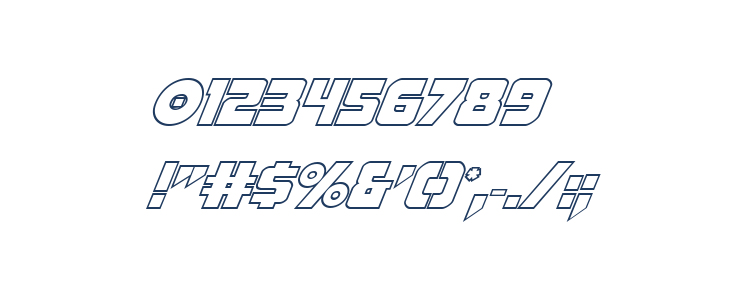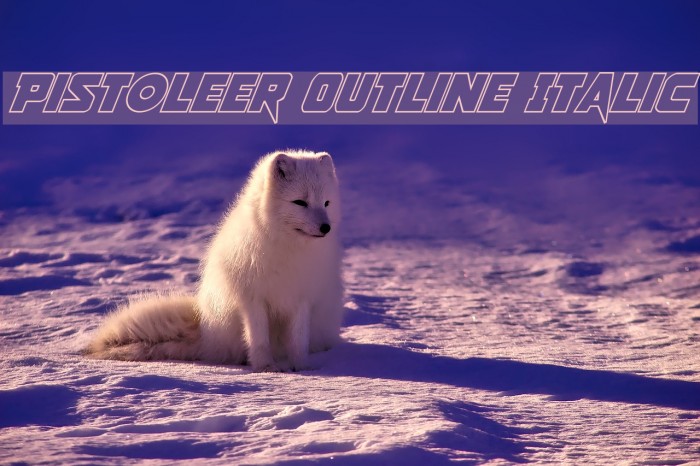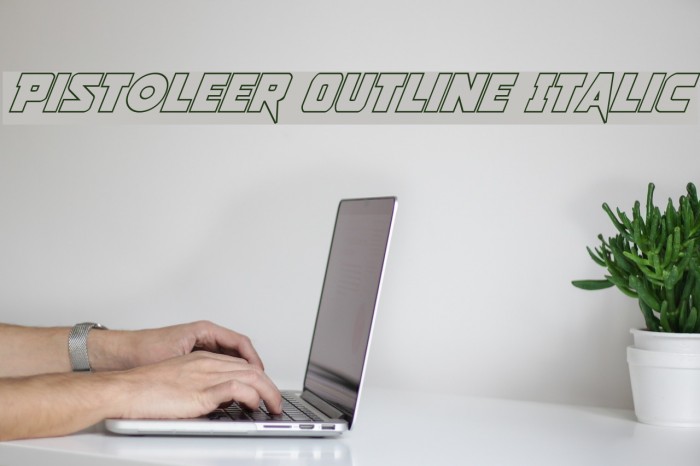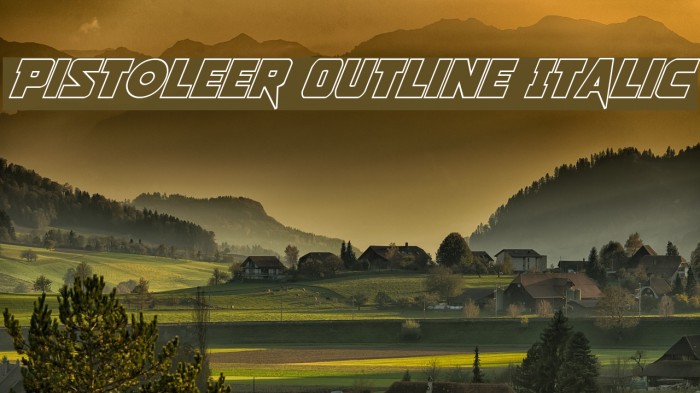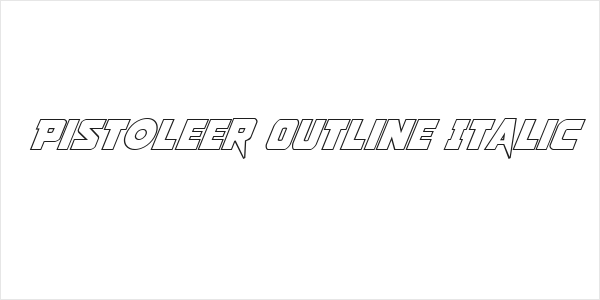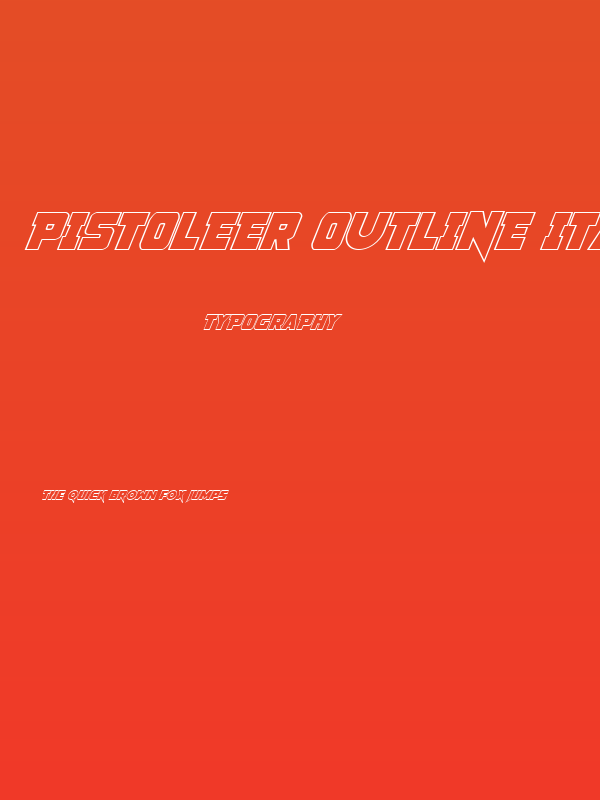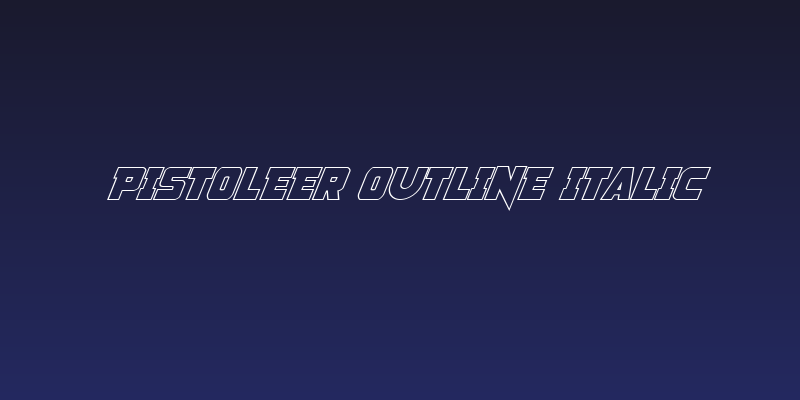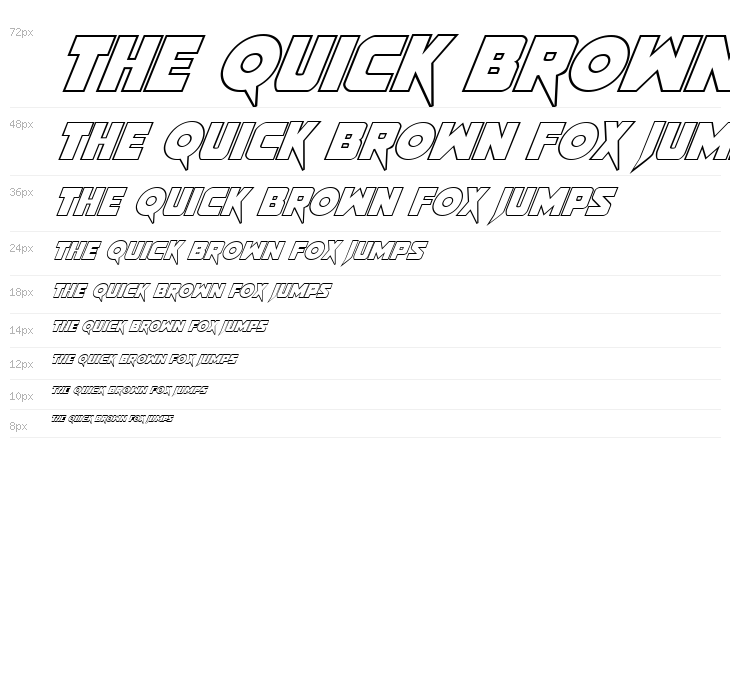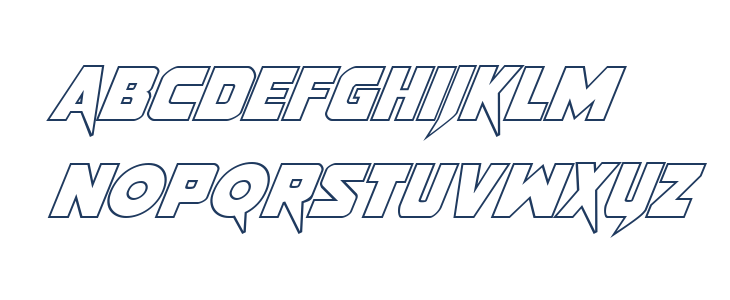
Pistoleer Outline Italic Font
Pistoleer Outline Italic Description
This font features a bold, dynamic design with an outline style that gives it a striking appearance. The italic slant adds a sense of motion and energy, making it ideal for attention-grabbing headlines or titles. Each character is outlined, providing a unique visual effect that stands out against backgrounds. The angular and geometric shapes of the letters convey a modern and edgy feel, suitable for projects that require a bold statement. The spacing between characters is normal, ensuring readability while maintaining its distinctive style. The font's high contrast between the thick outlines and the inner space enhances its visibility and impact.
| Proposed Projects | Ideal for posters, logos, video game graphics, and any project needing a bold, energetic typeface. |